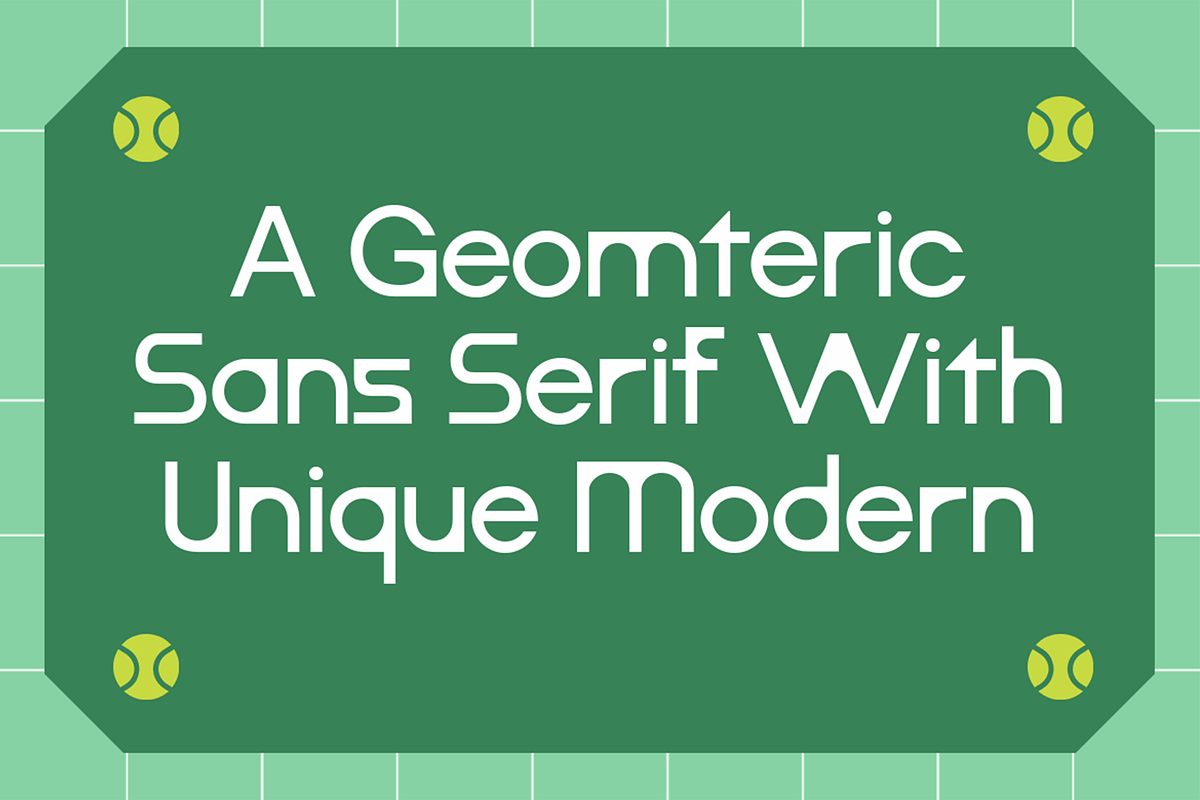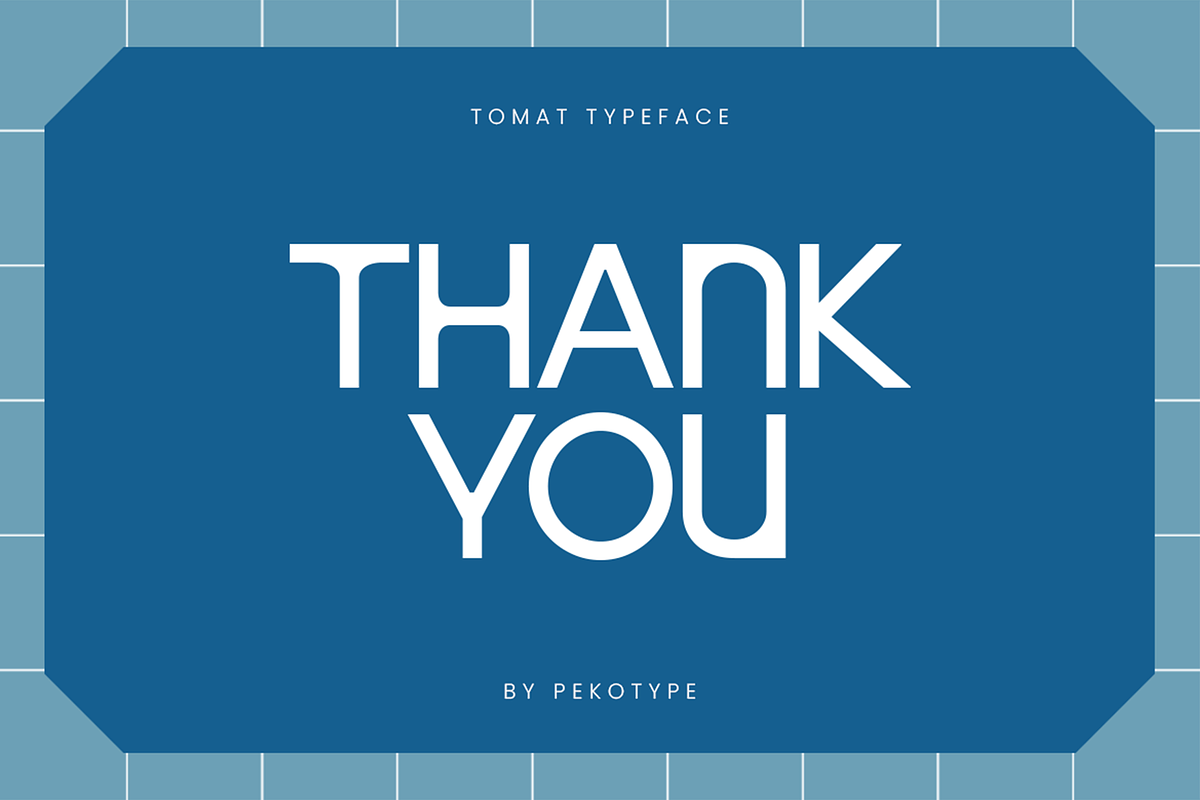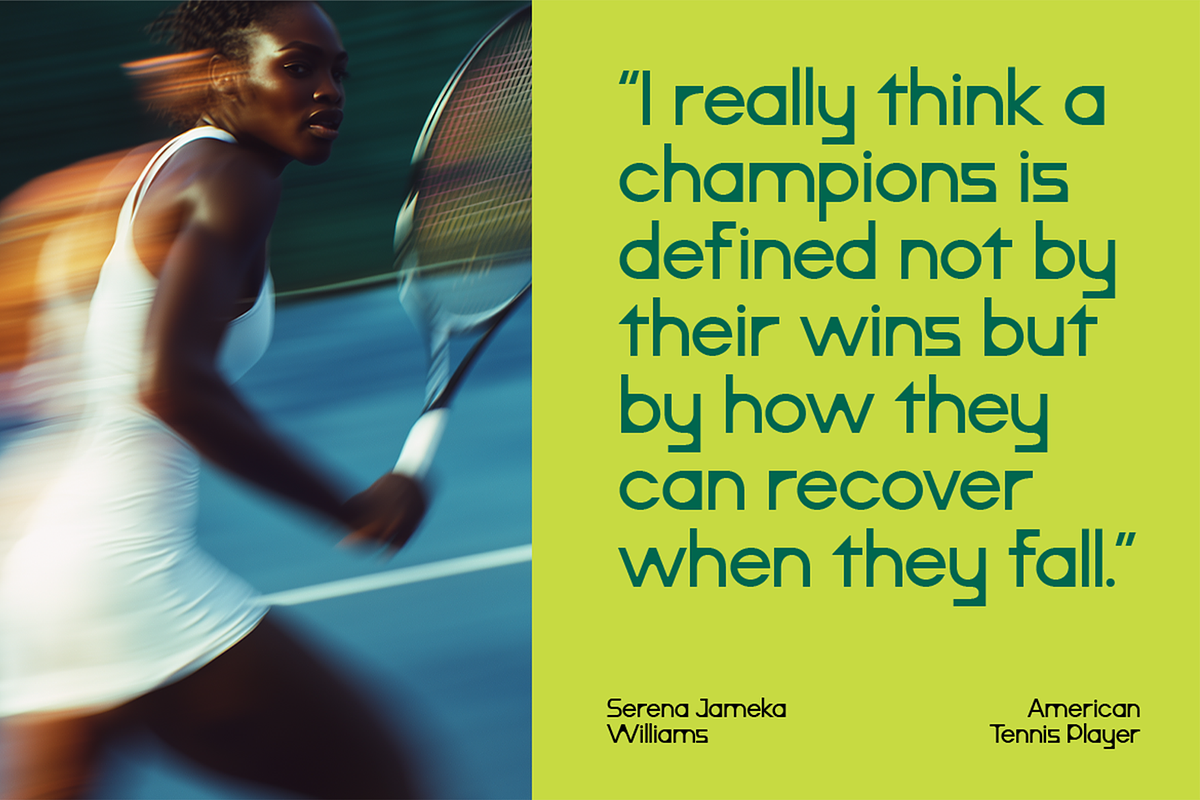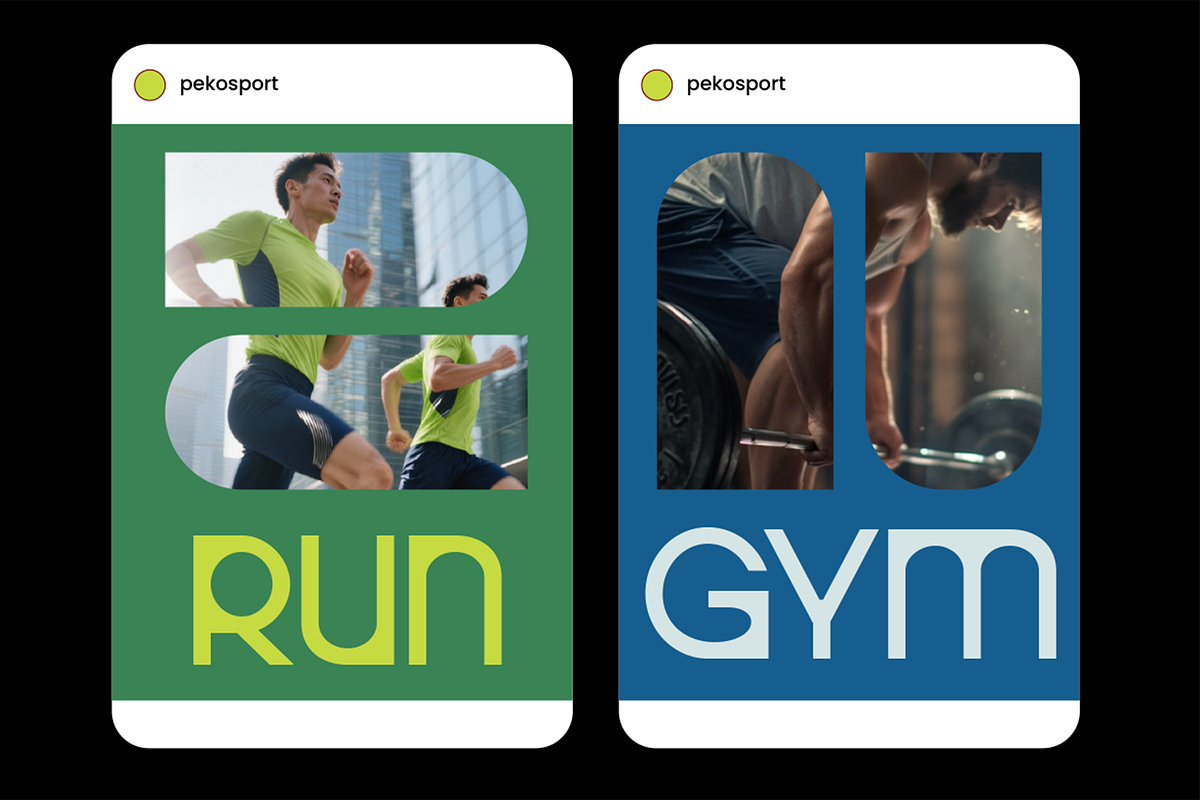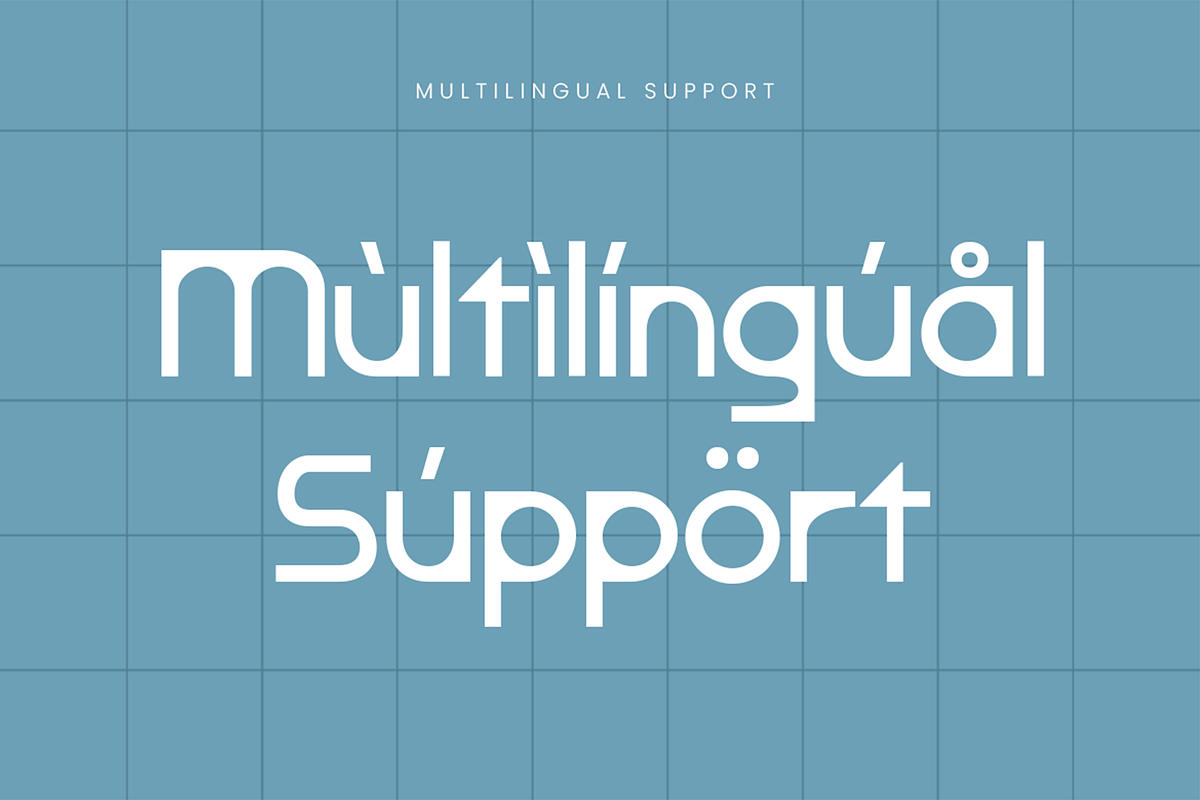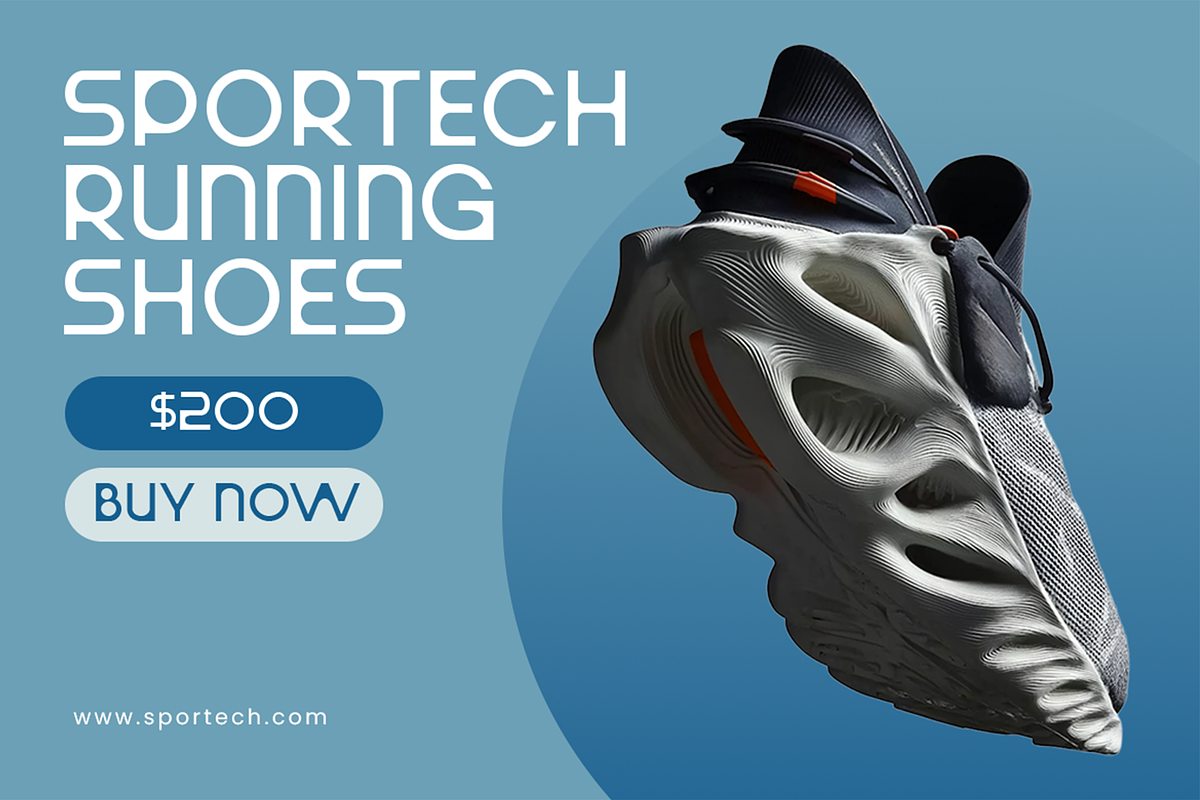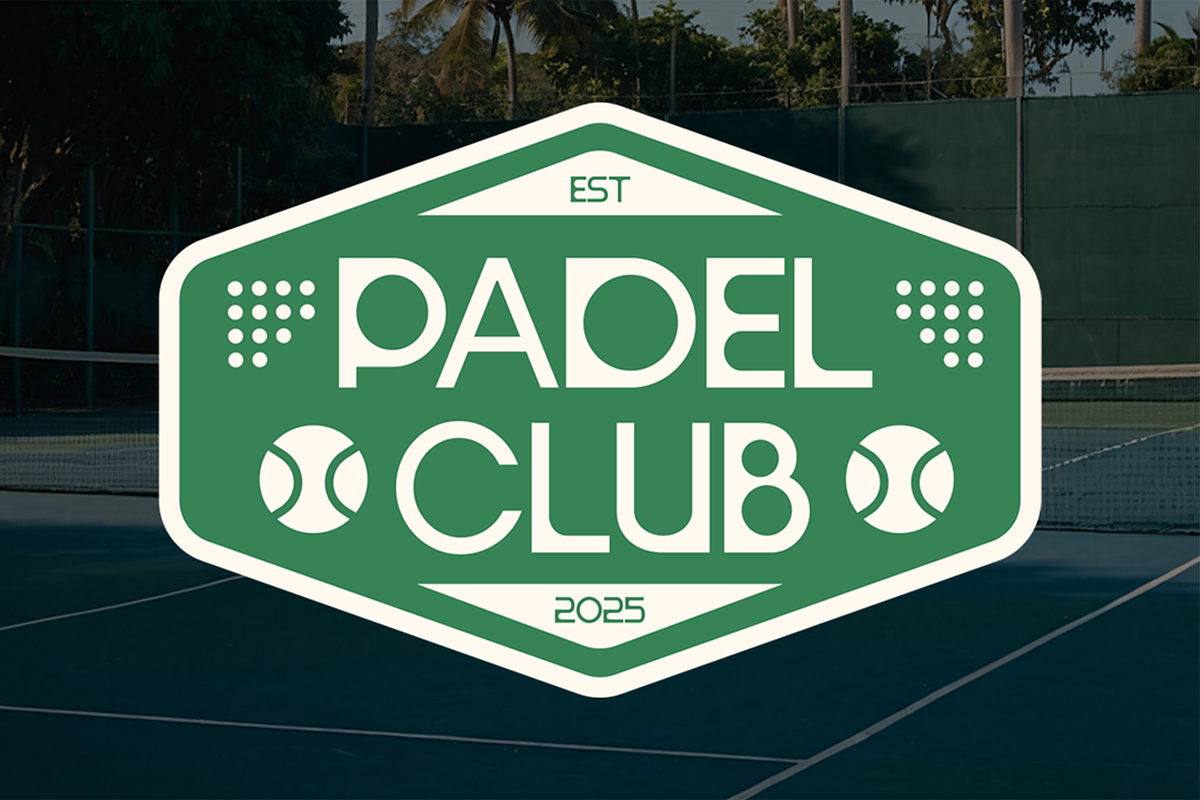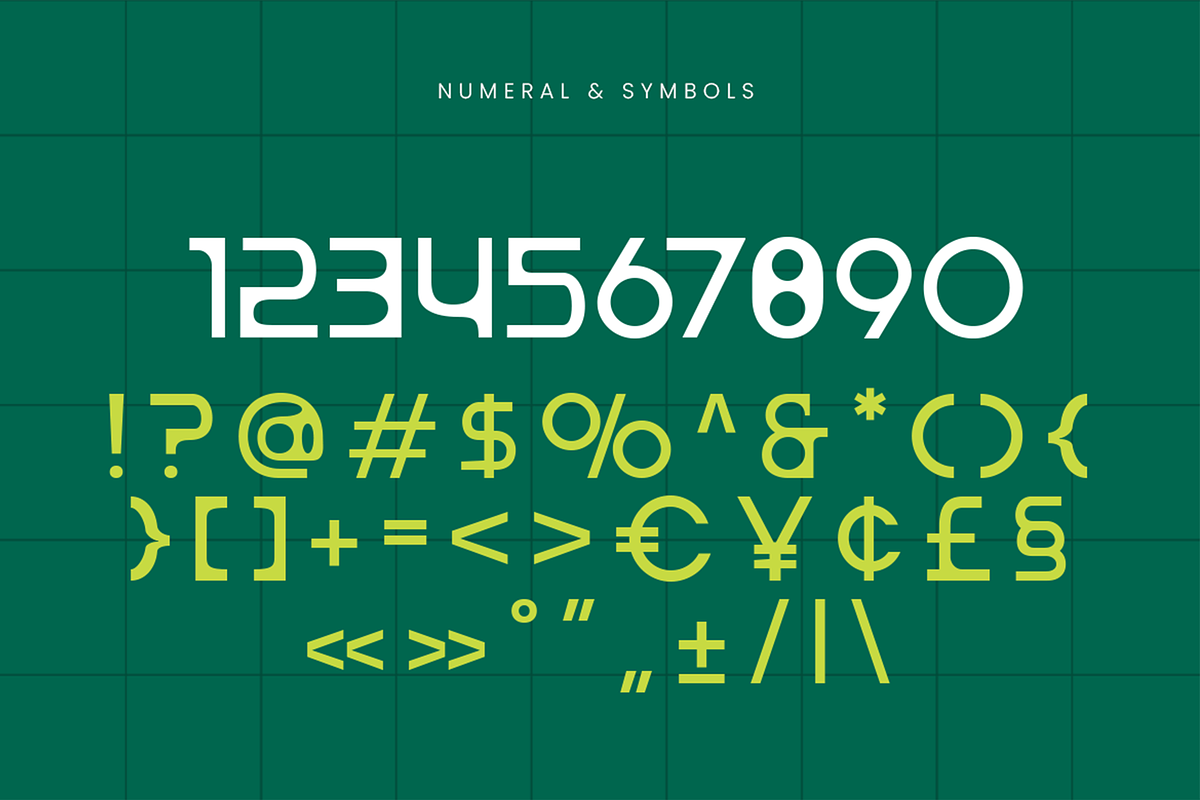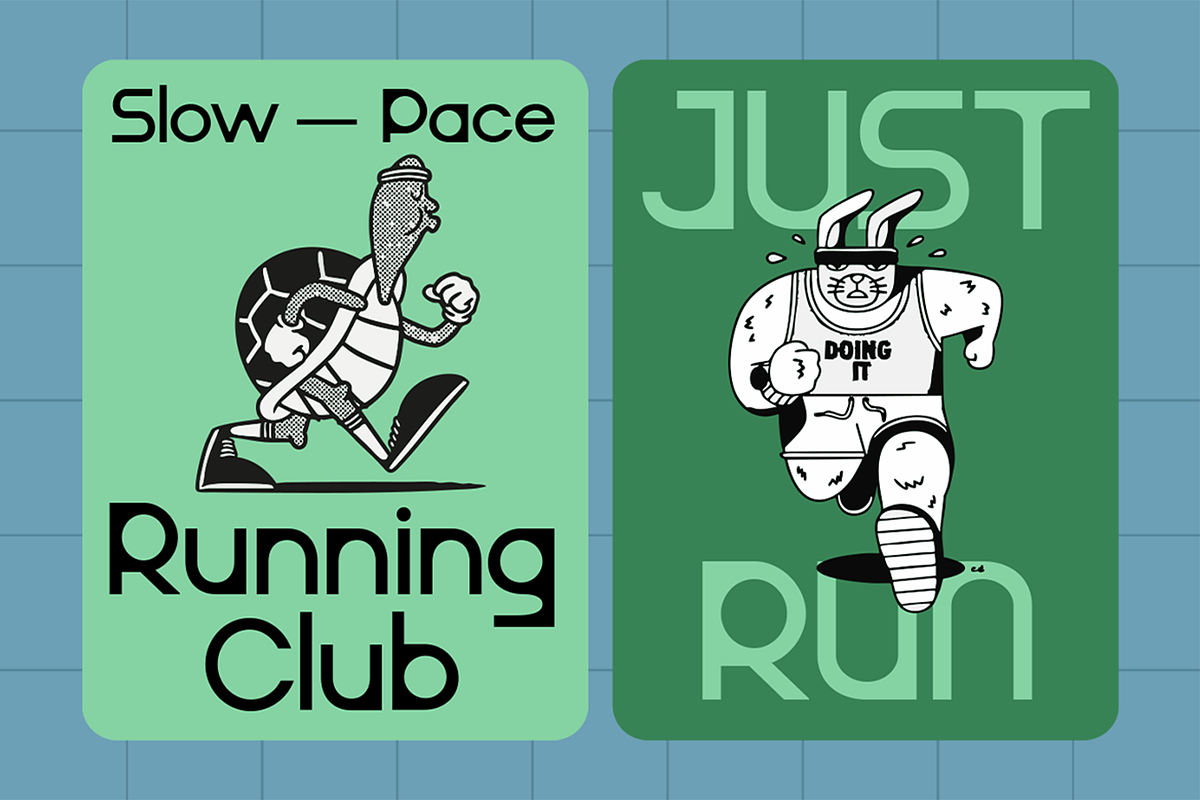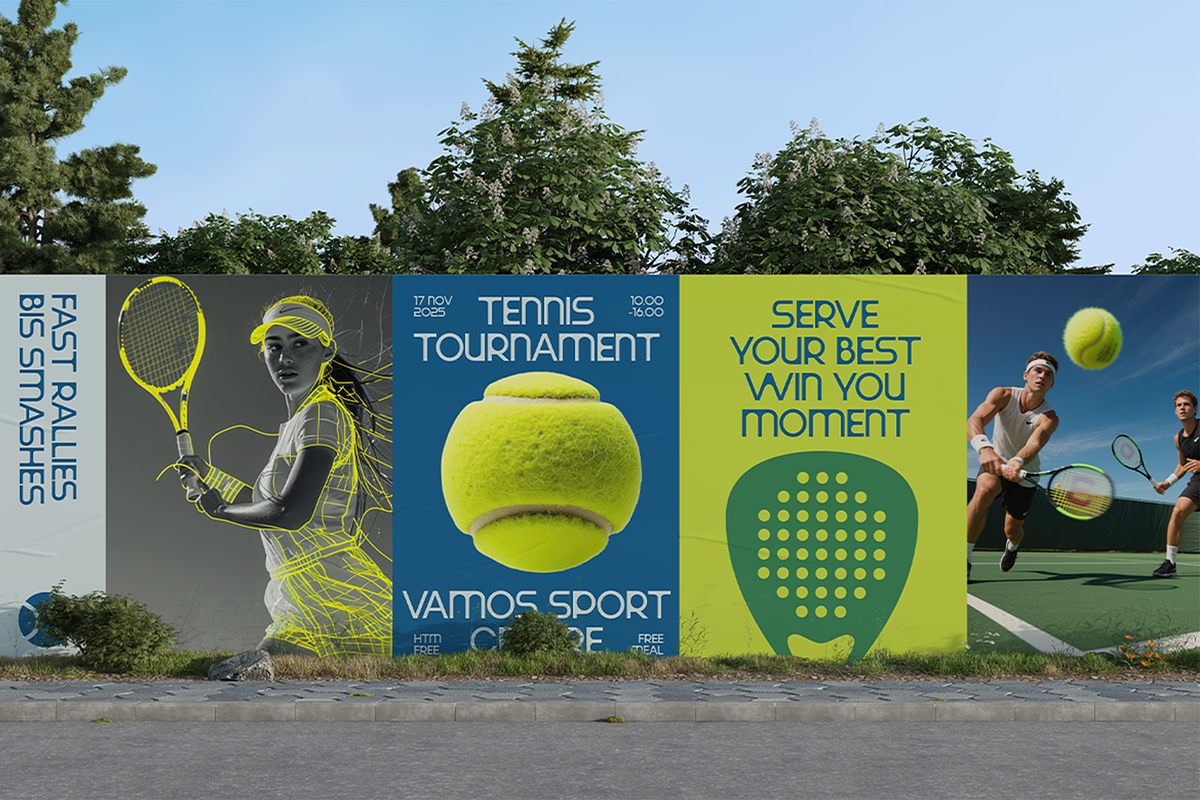
Tomat - Modern Geometric Font
TOMAT – Modern Geometric Sans Serif Font
TOMAT is a clean and modern geometric sans serif typeface designed to deliver clarity, versatility, and a fresh contemporary look. Built with precise geometry, smooth curves, and balanced proportions, TOMAT brings a friendly yet professional tone that works perfectly across digital and print design.
Featuring uppercase and lowercase characters with full multilingual support, TOMAT is highly adaptable for global projects. Its minimalist structure and strong readability make it ideal for branding, logos, marketing campaigns, startups, sports visuals, lifestyle brands, social media graphics, UI layouts, posters, and promotional materials.
TOMAT is designed to perform consistently at both large and small sizes, making it a reliable choice for headlines, logotypes, and body text in modern layouts. Whether you’re working on tech branding, fitness promotions, creative marketing, or clean corporate identities, TOMAT Typeface delivers a modern geometric style with strong usability.
If you’re looking for a sans serif font that feels modern, approachable, and versatile, TOMAT Typeface is a smart choice for contemporary design needs.
- Number, Symbol, & Punctuation